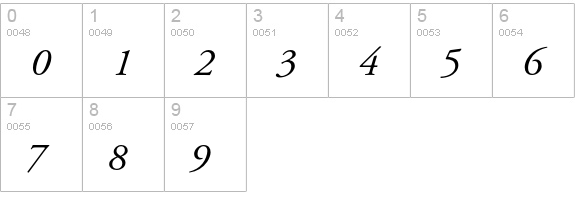
Adobe Garamond Italic Font Details
Adobe Garamond Italic is a distinctive, italic variant in the Adobe typeface family \xE2\x80\x94 well suited to design and typography projects.
Adobe Garamond Italic is a timeless and elegant font that adds a touch of sophistication to any design project. Its graceful curves and slanted appearance make it ideal for conveying a sense of elegance and refinement. The italic style of Adobe Garamond enhances the overall aesthetic appeal of text, making it perfect for use in editorial design, branding, and high-end marketing materials. What sets Adobe Garamond Italic apart is not only its classic design but also the fact that it is available for free download at FontsMarket.com. This means that designers and creatives can access this premium font without any cost, making it a valuable resource for both personal and commercial projects. With Adobe Garamond Italic, you can elevate your designs with a touch of sophistication and style, all without breaking the bank.